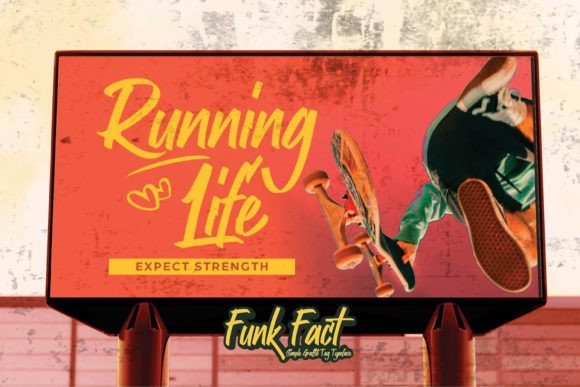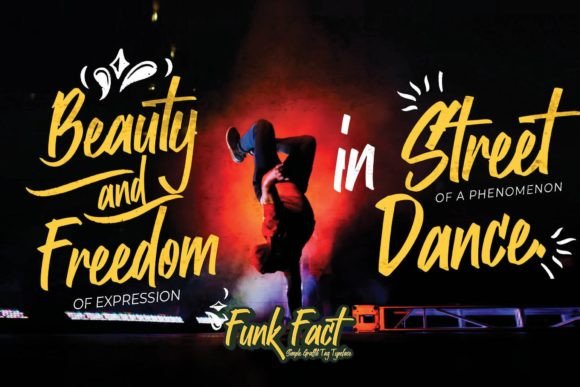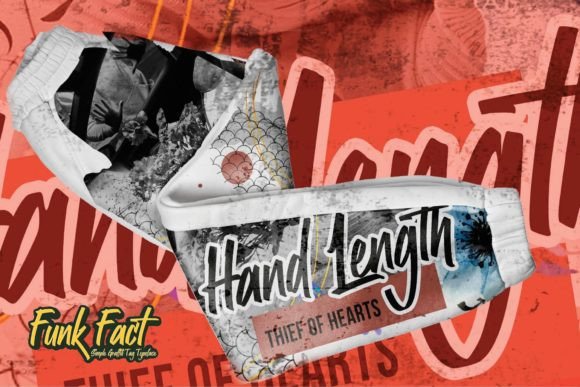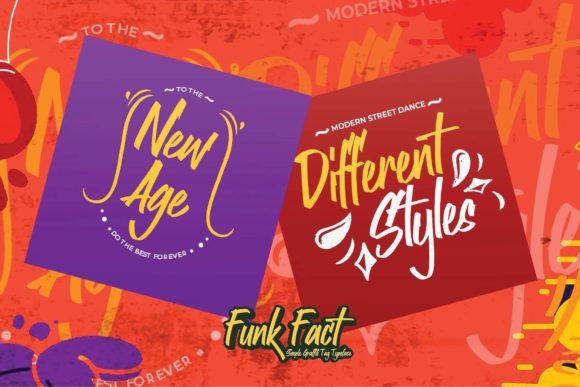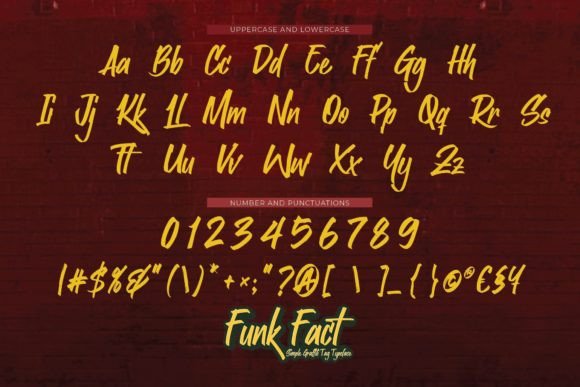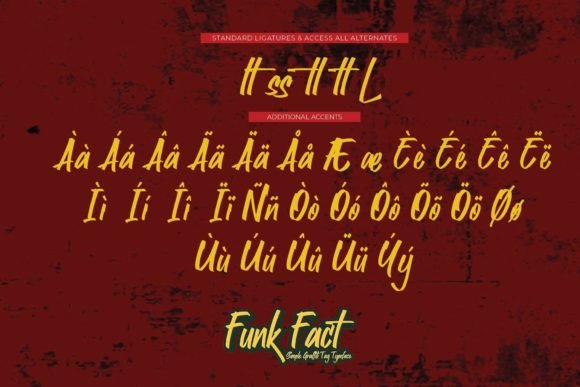
The Funk Fact Font: A Graffiti Style Typeface to Elevate Your Designs
An Honest Review of Funk Fact Font
What I Love About Funk Fact ✨
• ✅ Naturally Textured Style: Funk Fact’s texture gives it a organic, hand-drawn feel that’s perfect for designs that need a bit of grit and personality.
• ✅ Dramatic Movement: The font’s dynamic style adds energy and movement to any design, making it ideal for headings, titles, and emphasis text.
• ✅ Classy Look: Despite its graffiti roots, Funk Fact has a sophisticated, classy vibe that works well for a wide range of projects, from logos to wedding designs.
• ✅ Easy to Read: The font is surprisingly legible, even at smaller sizes, making it suitable for body text and captions.
• ⚠️ Limited Formality: Funk Fact’s urban style might not be the best fit for very formal or traditional designs, such as corporate reports or academic papers.
• ⚠️ Overuse of Texture: While the texture is a key feature, overusing it can make the font look cluttered or messy.
3. Explore OpenType features, such as stylistic alternates and glyphs, to customize the font.
The Designer Inspiration Behind Funk Fact
While the true story behind Funk Fact’s creation is unknown, it’s easy to imagine a designer inspired by the vibrant street art scene, seeking to capture the energy and movement of graffiti in a digital font. The result is a typeface that’s both playful and sophisticated, perfect for designers looking to add a touch of urban style to their work.
Q: What type of projects is Funk Fact best suited for?
Funk Fact is versatile and can be used for a wide range of projects, including logos, printed quotes, invitations, cards, product packaging, headers, watermarks on photography, advertisements, product designs, stationery, and wedding designs.
Q: Can I use Funk Fact for body text?
While Funk Fact is primarily designed for headings and emphasis text, it can be used for body text in certain contexts. However, its texture and movement may make it less suitable for long blocks of text.